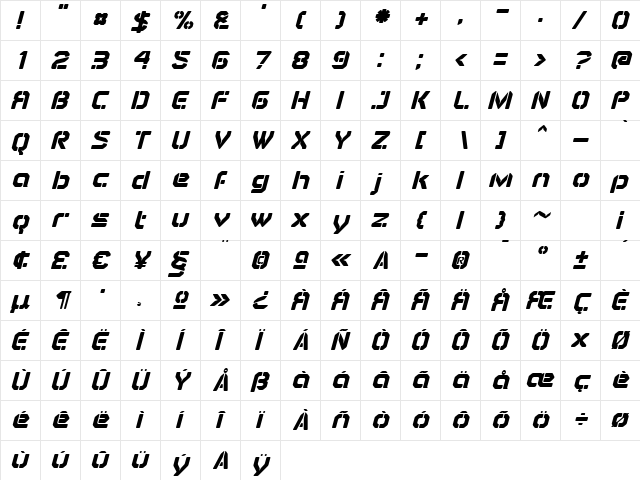
Airbrake RoundedOblique
Design Context for Airbrake Typeface
Airbrake softens its letterforms with rounded terminals, giving it an approachable, friendly quality that works well in consumer-facing and digital contexts. The slanted form adds forward momentum and visual energy.
A natural fit for tech startups, health and wellness brands, children's products, and friendly consumer apps.
Font Pairing: Pairs well with a rounded or humanist sans for body copy, maintaining the friendly tone without relying on Airbrake to carry extended reading.
Pro Tip: Pair Airbrake with a geometric sans for a balanced system — the rounded softness works as a warm counterpoint to harder-edged companions.